29 Best Fun Fonts (Download Now to Use)
There are plenty of formal and practical fonts on the market, but what if you need a font that conveys joy? Well, today we'll explore the world of fun, magical, exciting fonts found at Envato Elements. If you're looking for fun fonts to use, you won't be able to resist these.
1. Lucid Dream Psychedelic Fun Font
Capture the feeling of having a lucid dream with fun psychedelic typefaces like this one. Its glyphs are blocky, with nice curves that add to its laid-back feel. The retro style makes Lucid Dream one of the most fun word fonts to use in your upcoming projects.
2. Bata Display Fun Print Font
Create some fun typography with the Bata typeface. I love the way each letter looks as if it was handmade with a carefree style. Even though it seems like that on the surface, Bata also has multilingual characters and a web font, showing how much thought went into its creation.
3. Meh Fun Font
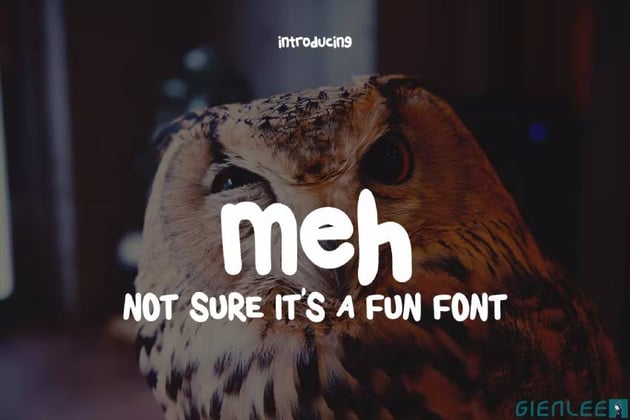
I'm not going to diss Comic Sans here, but if you want a fresher version of that style, choose Meh. The fun font style's name reflects its chill attitude. Try using it on posters, social media posts, or flyers.
4. Anima
How cute is this font? Anima is one of those fun fonts for kids that will bring a bit of magic to every project. It contains upper and lower case characters, numbers, punctuation and, as a special bonus, ten animal vectors every child will love.
5. The Georgios Font
Are you looking for fun handwriting fonts? The Georgios Font may be just the thing for you. This gorgeous hand-written font was created using the Brush Tool. It contains 276 glyphs, including many alternate characters and stylistic alternates. A totally fun handwriting font, wouldn't you say?
6. Beach Ball CPC
Need a fun but professional font? How about Beach Ball CPC? This modern and oh so playful font offers bold shapes that come in four styles—filled, outline, sandy, and sandy outline—that you can mix and match or even layer over each other. It contains uppercase characters, numbers, punctuation, and symbols.
7. Frightful Fun Typography
Are you looking for fun Halloween fonts? Frightful Font might be a great candidate, especially if you want heavy on the fun and light on the frightful. This fun font for kids and adults alike features all uppercase letters with funky patterns and tons of adorable characters. Mix and match to your heart's content.
8. Playtime Funny Font
Here's a somewhat comic fun font for kids. Playtime is bold and playful, featuring uppercase letters and quirky characters that you can combine to create a look that is uniquely yours. Give it a try the next time you work on a project that needs playful and funny fonts.
9. Wisp Fun Typeface
This somewhat otherworldly fun font for posters is just what you need to bring a little something extra to your next project. Almost every letter of this fun professional font has an alternate version that can be accessed by toggling the Caps Lock. The font includes uppercase letters, numbers, punctuation, and an extra font file with tons of decorative elements.
10. Dazey Exciting Display Font
This list is full of fun fonts for posters, but none more so than Dazey Display. This hand-drawn display font has a youthful boho feel that is great for posters, magazine covers, logo design, wall art, and so much more. It comes in two variations—simple and detailed—and the two can stand alone or can be mixed and matched to create a one-of-a-kind look.
11. Hello Guys Fun Font
How's this for a fun spring font complete with sprouting leaves and butterflies? Hello Guys is a sweet, light-hearted font that will complement projects for kids and adults alike. It offers two different styles—regular and line—and tons of awesome characters.
12. Hailyland Fun Children Typeface
Another one of those fun fonts to use for kid projects, Hailyland is a lovely hand-drawn font that includes tons of playful characters and offers multilingual support. Use it for logos, product packaging, T-shirt design, or any other project designed for kids or where you want to add a touch of playfulness.
13. Califunkia Fun Word Font
Califunkia is a fun bold font that you can use on T-shirts, posters, and other projects. The set includes 260 alternate ligatures which you can use to customise your font however the mood takes you. Contains language support for both Latin-based and Eastern European languages.
14. Lovea Fun Print Script Font
Fun calligraphy fonts like Lovea script add a fresh and playful note to any project. The file includes three font versions—script, slat, and doodle—and contains upper and lower case characters, numbers, and punctuation. Use this fun script font for your greeting cards, quotation posters, logos, and other branding needs.